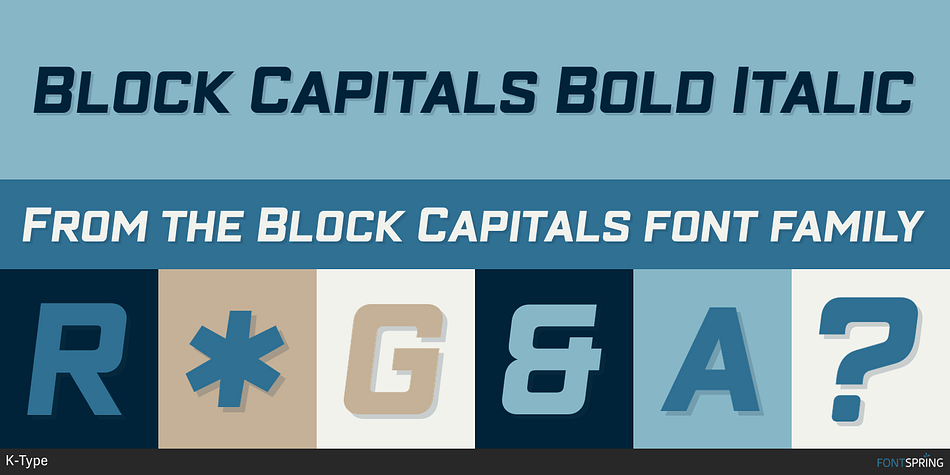
Block Capitals Bold Italic
Designed by Keith Bates, Block Capitals is a display sans font family. This typeface has twenty styles and was published by K-Type.
BLOCK CAPITALS is a square, geometric, small caps display face that avoids fashionable foibles and exudes the neutral, unpretentious functionality of time-honored block lettering.
The family has three widths (Narrow, Normal and Wide), and the Bold weights are loosely based on well-used squared nets – 3x5, 4x5 and 5x5. However, the typeface escapes its grid origins whenever necessary with slightly modulated stroke weights, sensitive spacing and careful kerning. The aim is to retain the strength and simplicity of strictly geometric characters while introducing barely perceptible refinements that add elegance and usability.
That said, letters and numbers line up horizontally without overlapping the capline or baseline, even the tail of the Q does not descend below the baseline. Diacritics are modesty proportioned, accented characters extending no farther than necessary, allowing the leading on multiple lines of text to be kept to a minimum.